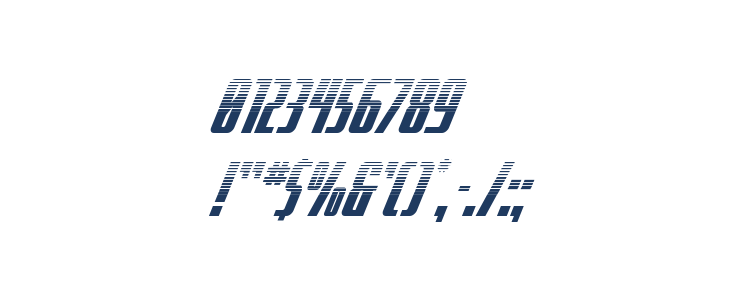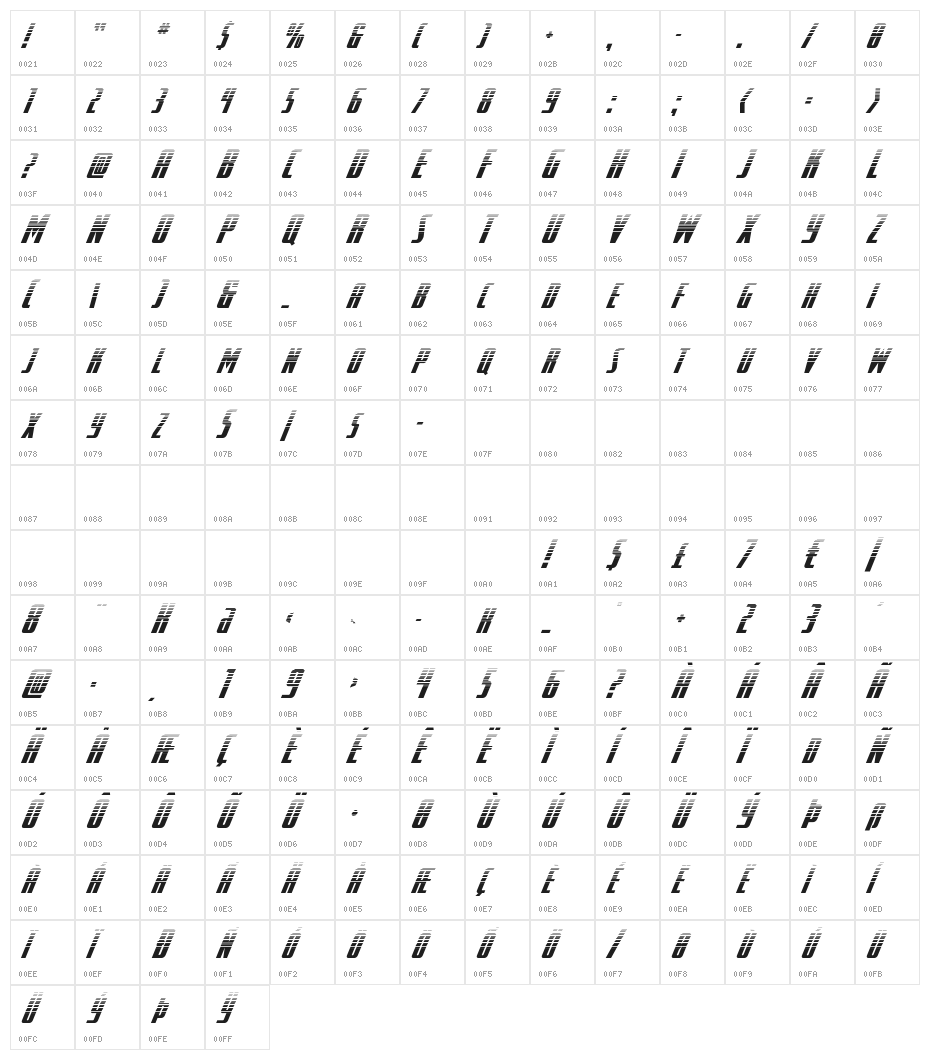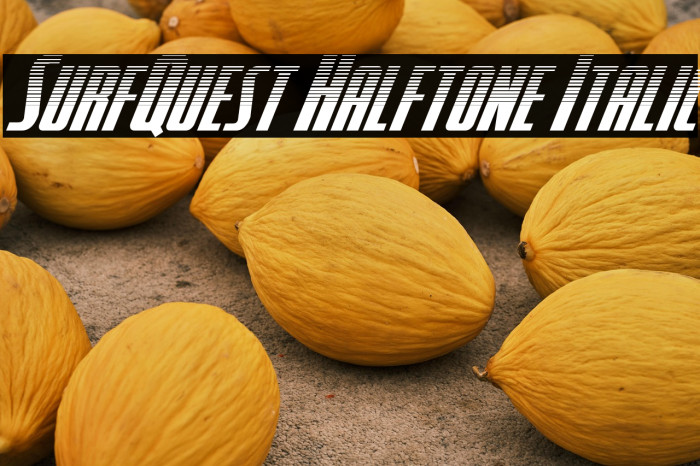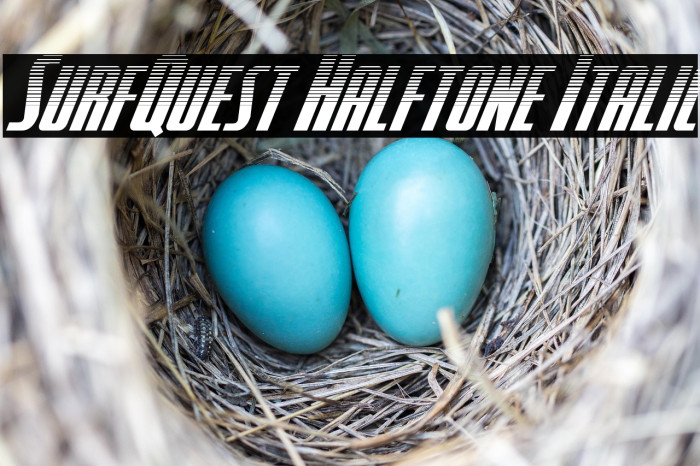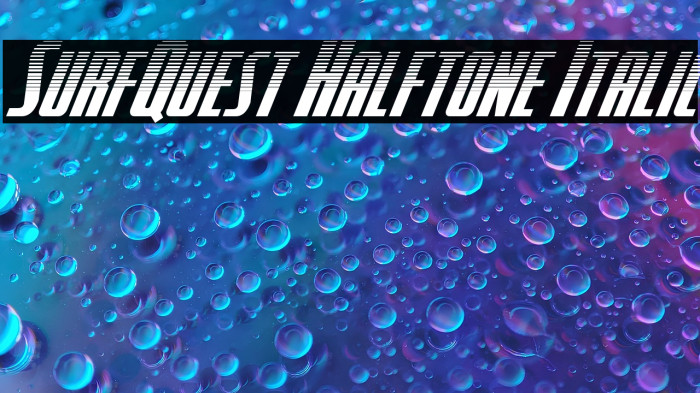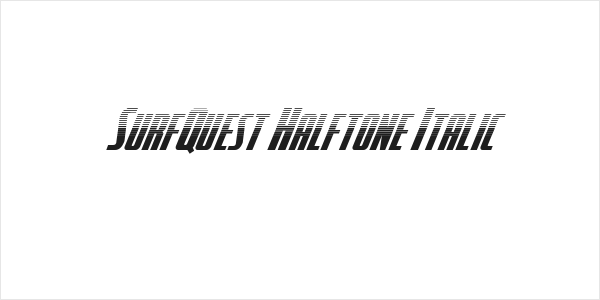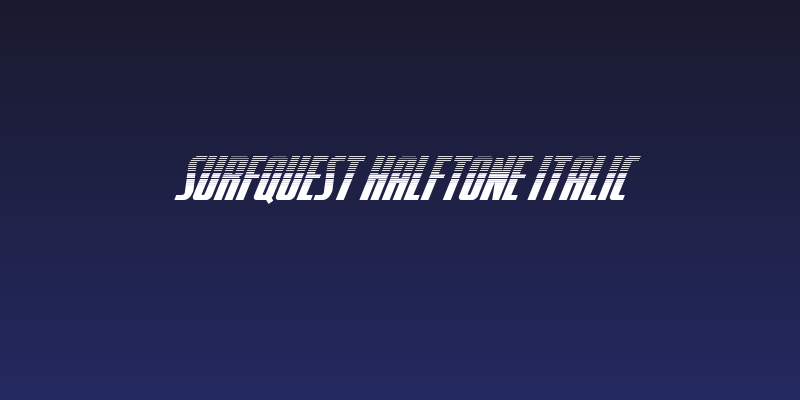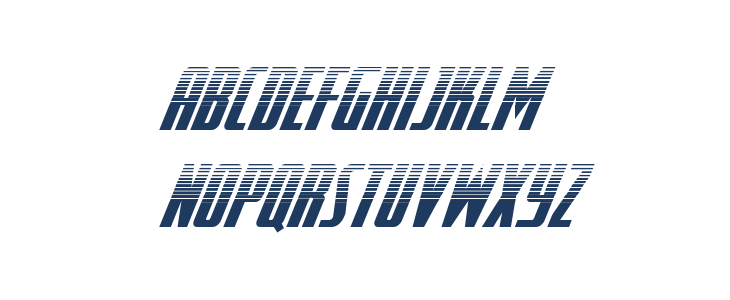
SurfQuest Halftone Italic Font
SurfQuest Halftone Italic Description
This font features a dynamic and modern design with a halftone effect that gives it a sense of movement and energy. The italicized style adds a sleek, forward-leaning appearance, enhancing its contemporary feel. The characters are bold and impactful, with a distinct slant that suggests speed and agility. The halftone pattern creates a gradient effect, adding depth and texture to the letters. This font is ideal for projects that require a futuristic or sporty aesthetic, making it suitable for branding, advertising, and digital media.
| Proposed Projects | Ideal for sports branding, futuristic advertisements, digital media, and dynamic posters. |